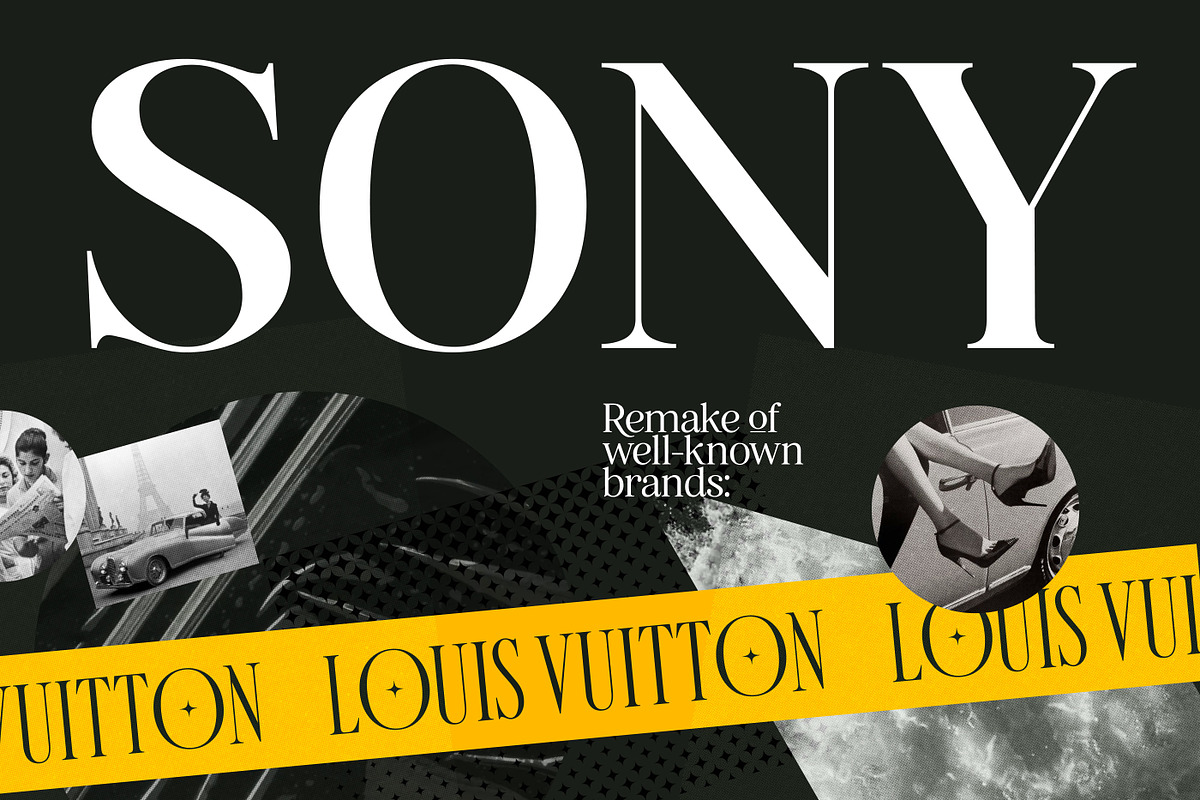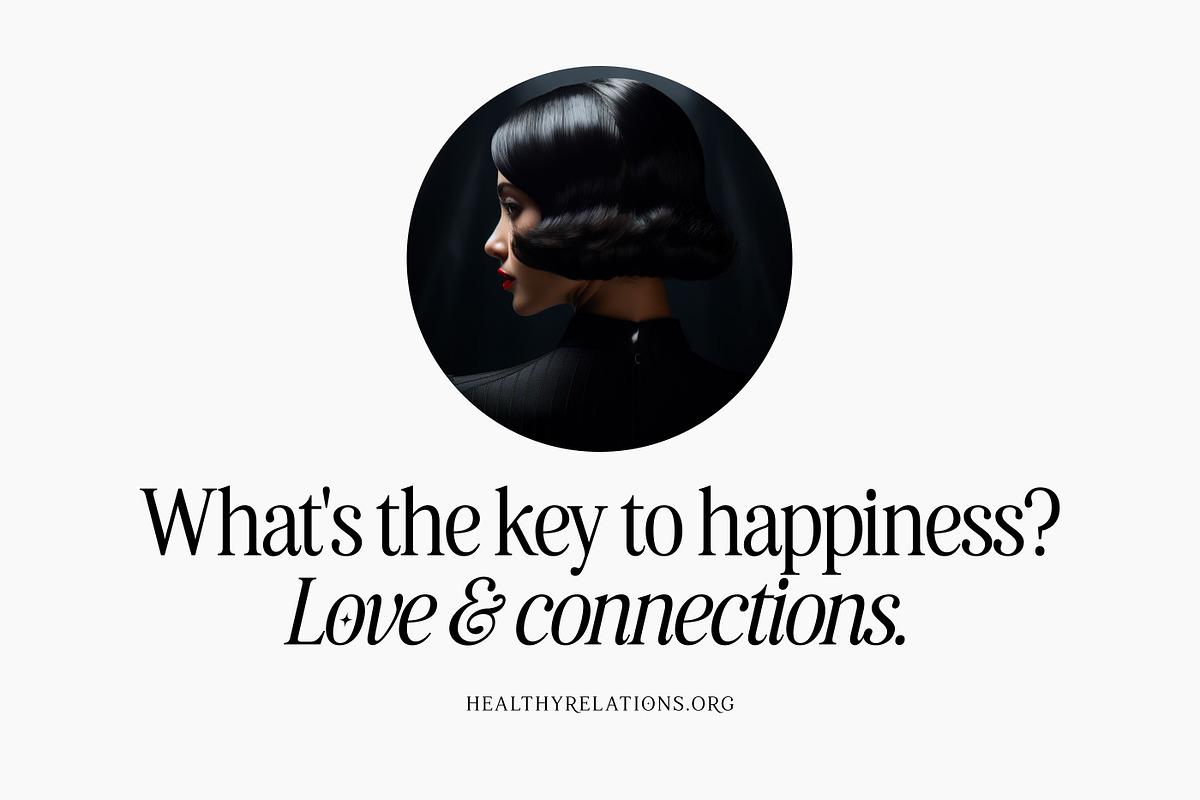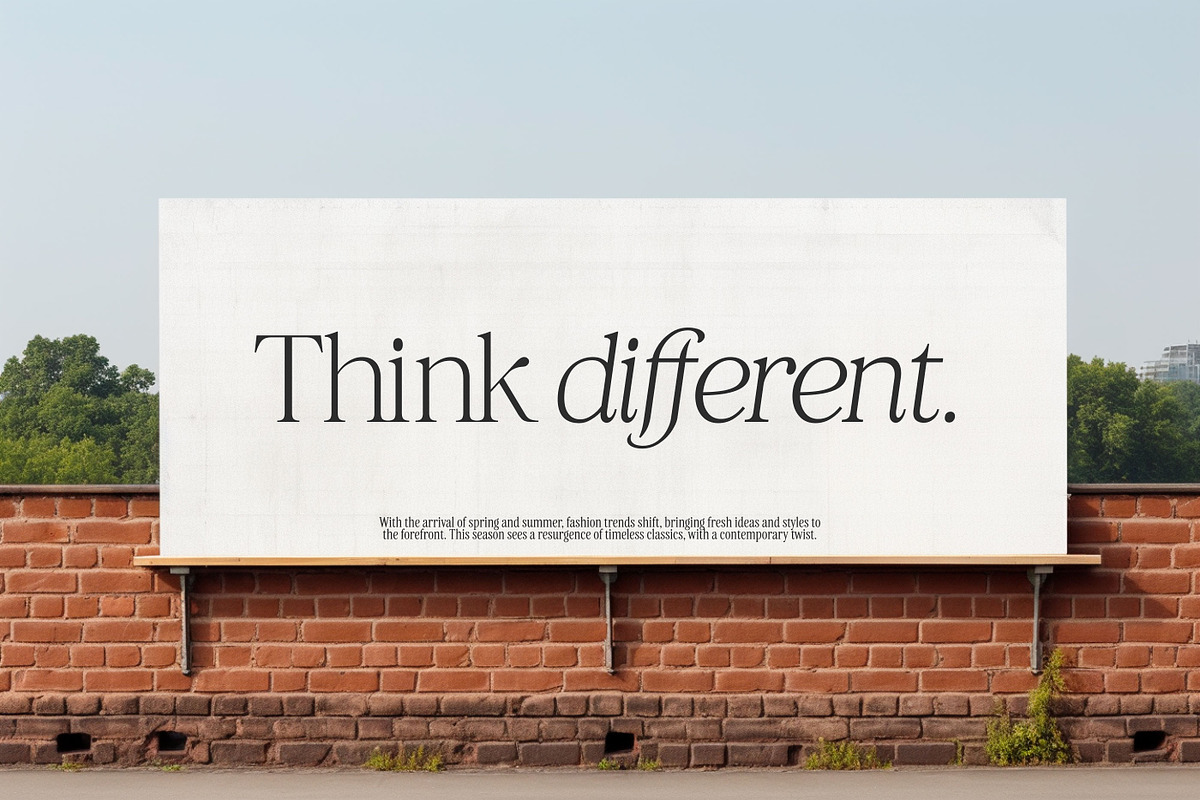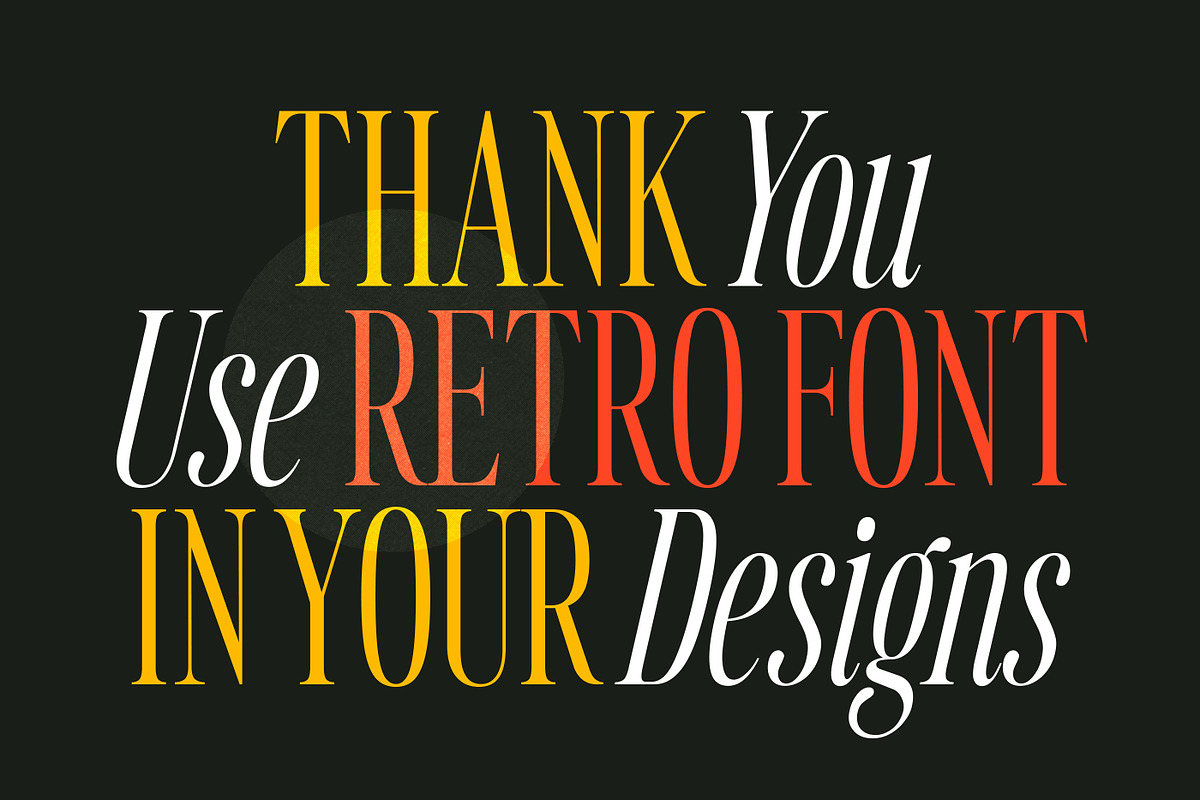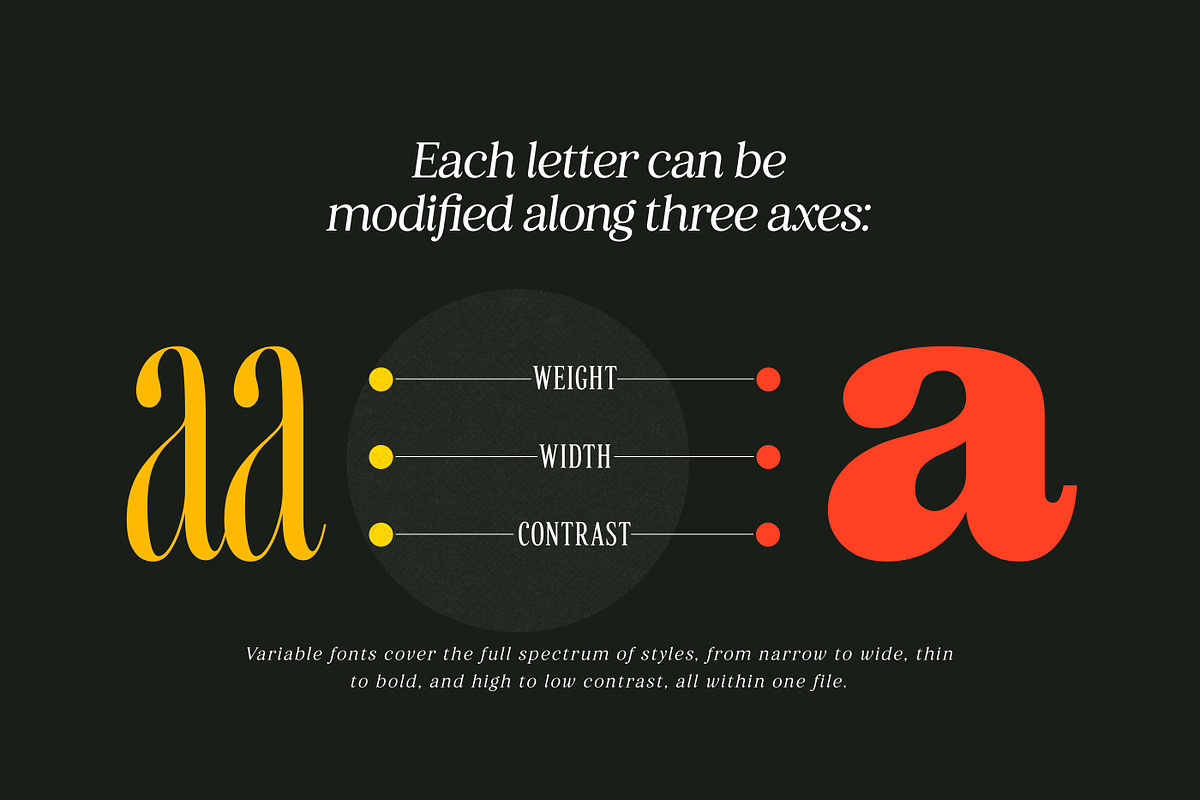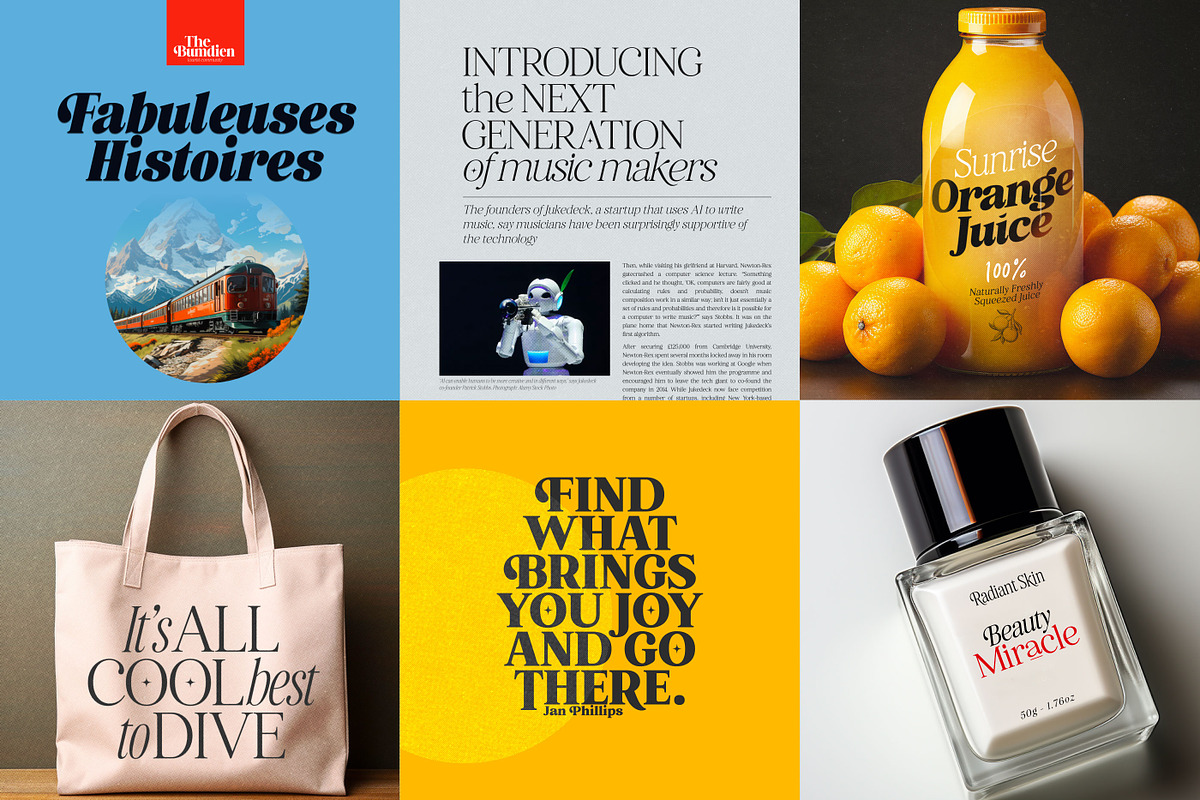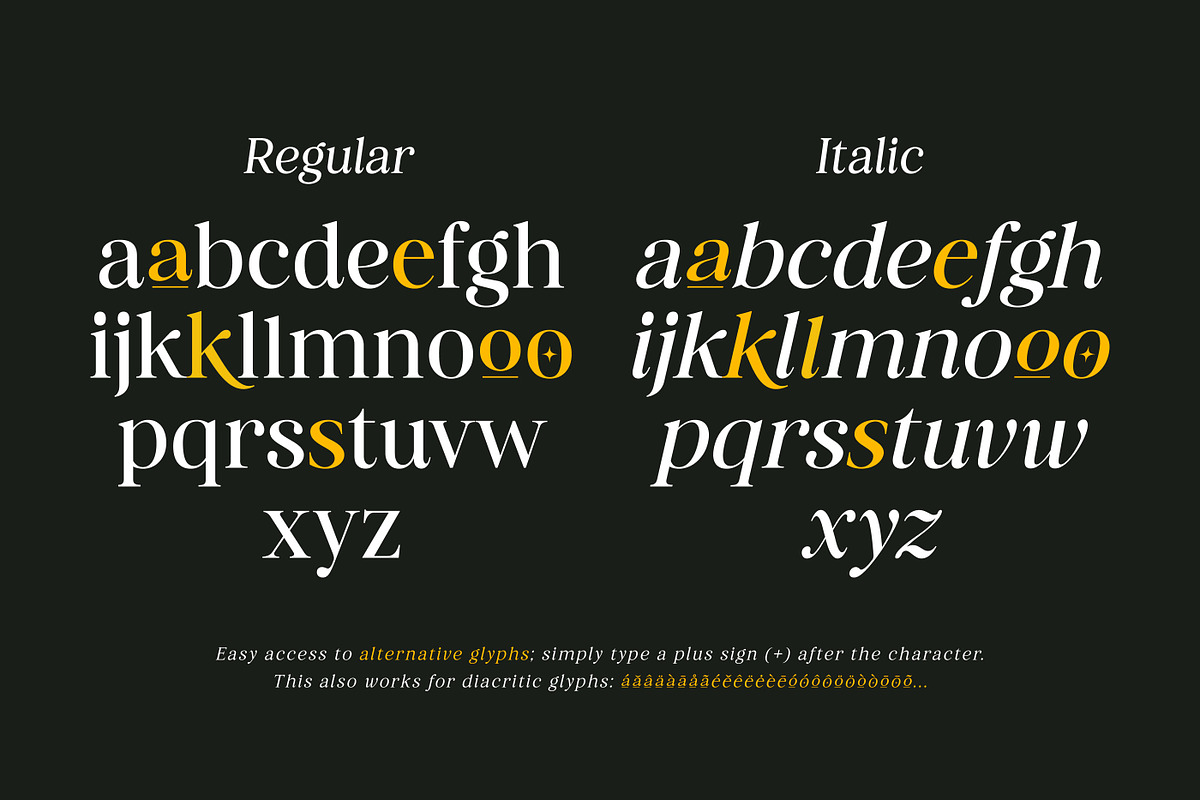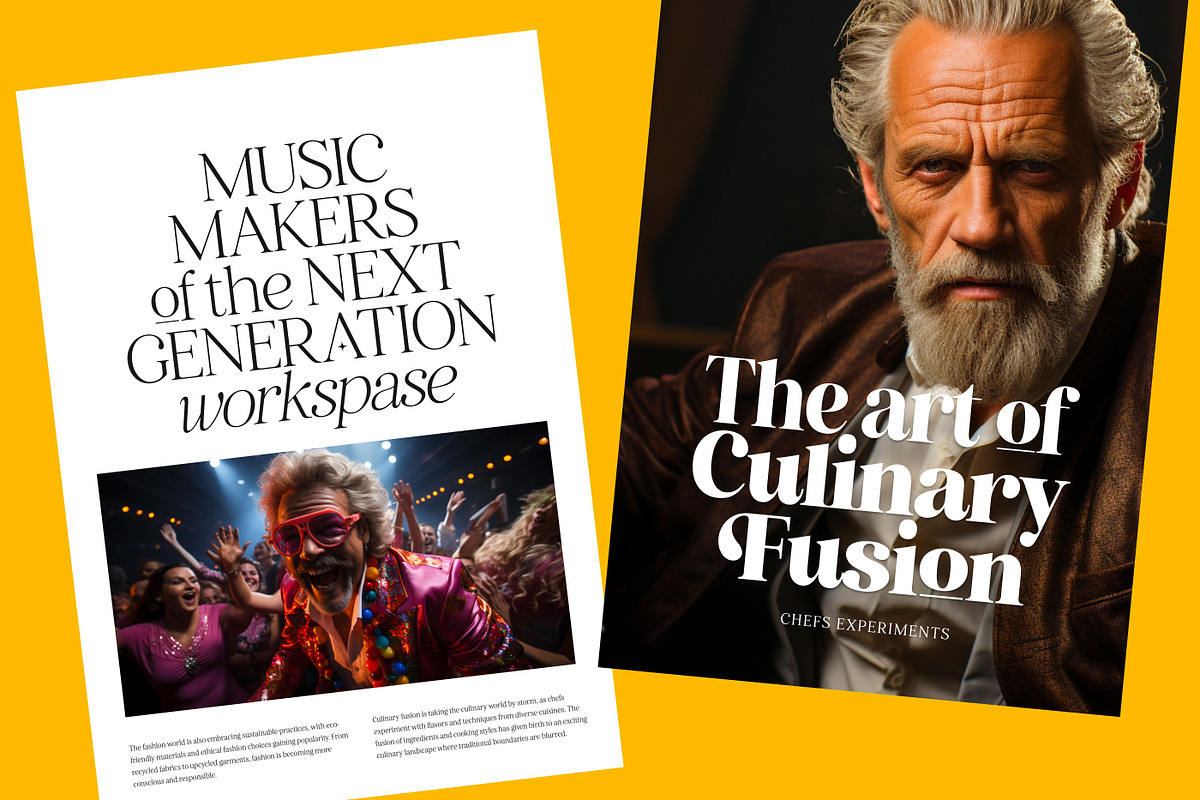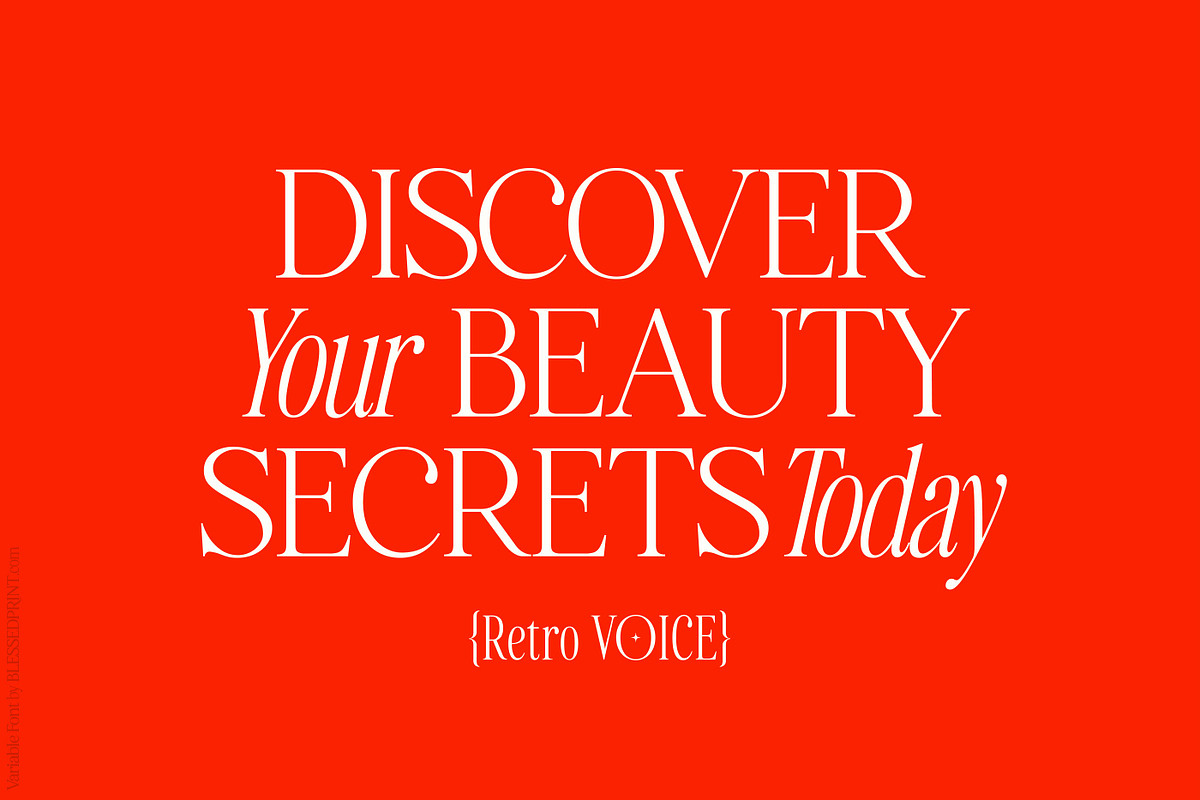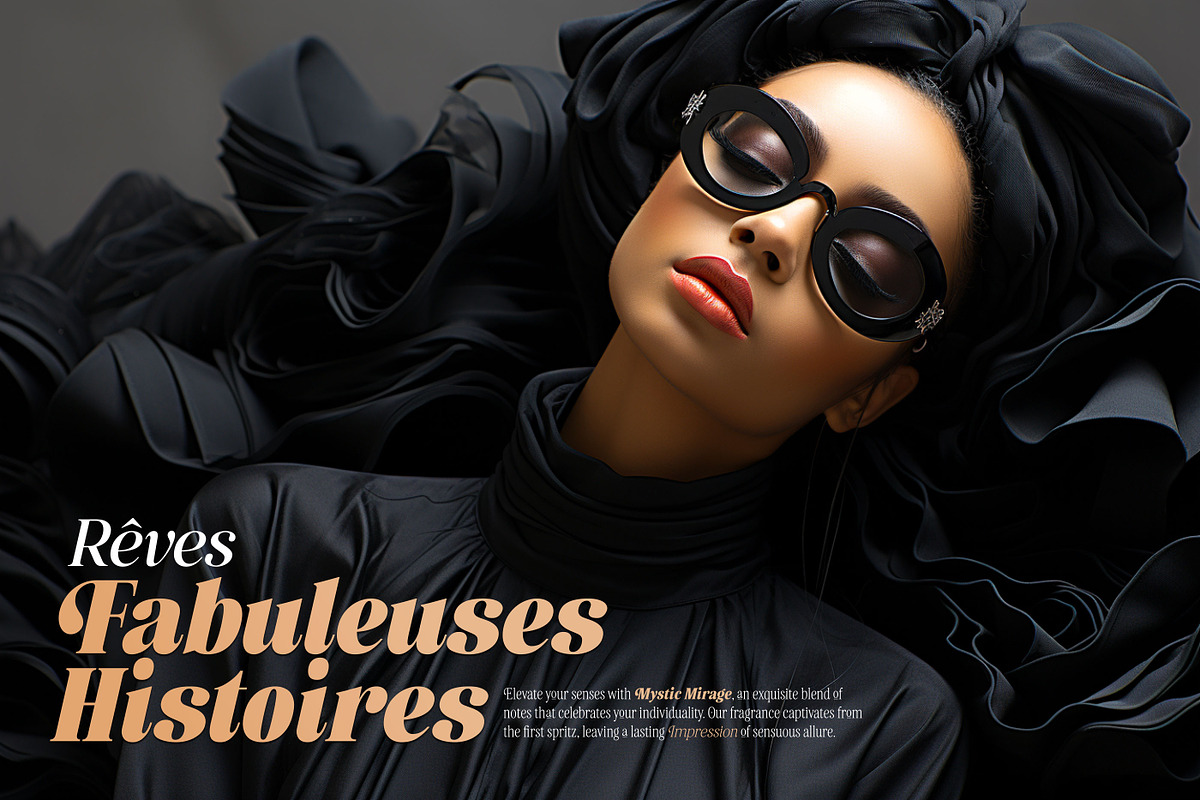
Retro Voice – Variable Serif Font
Retro Voice is a variable serif font created by BlessedPrint specifically to capture the spirit of the 80s and 90s. Developed based on fashionable vintage magazine headlines, my font consists of regular, slant, and italic versions that can be adjusted in three axes: width, weight, and contrast.
Advantages of a Variable Font RetroVoice variable font incorporates three axes, allowing you to adjust wight, width, and contrast. Consequently, each glyph needed to be created in 12 variations. The font comprises 467 glyphs in the regular version, which, when multiplied by 12, results in an astonishing total of 5604 glyphs.
Attention to Detail This font includes impeccable attention to detail, where every line and thickness was meticulously fine-tuned through a harmonious process and rigorous mathematical verification to give the font a perfect and exquisite luxury style.
Alternates and Ligatures If you've previously purchased fonts from my store such as Creative Vintage or Mozart Script, you already know that there's no need to open the glyph panel to apply alternate characters. Just type a "+" after the letter. (For example: AMER+ICA, o+f, TO+O+ LA+TE) It's also important to note that all characters are PUA encoded.
Language Support Dutch, English, Estonian, Finnish, French, German, Norwegian, Polish, Romanian, Spanish, Swedish, Swiss, Turkish, and others. Multilingual support is also available for alternative characters, such as Á+ and more.